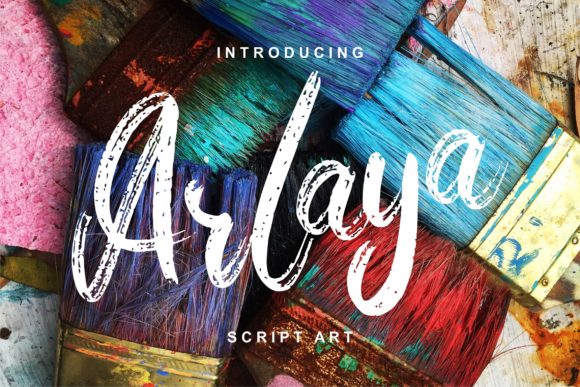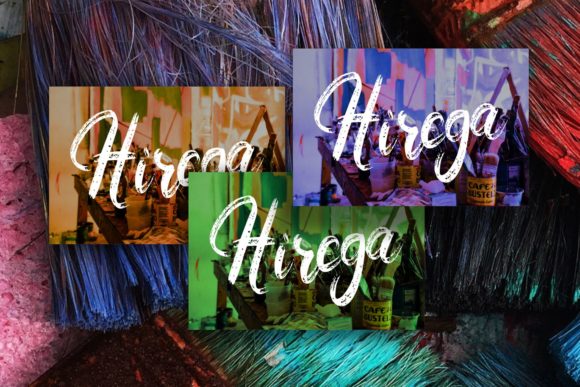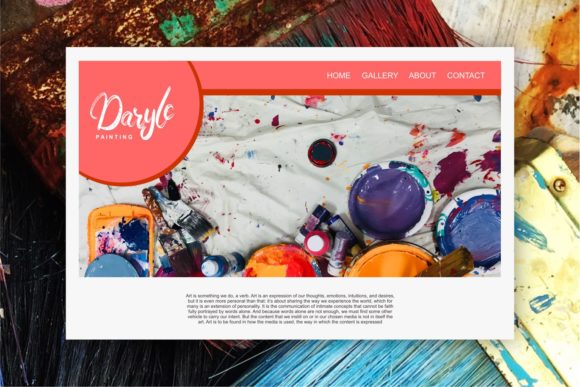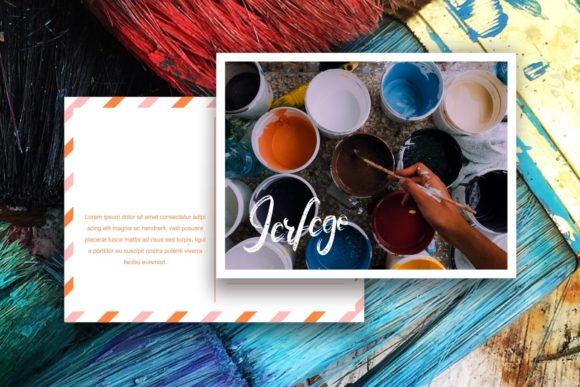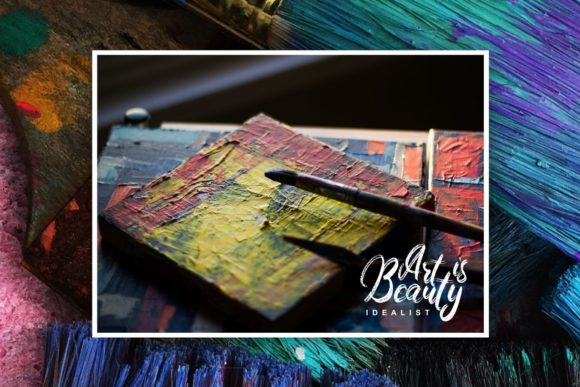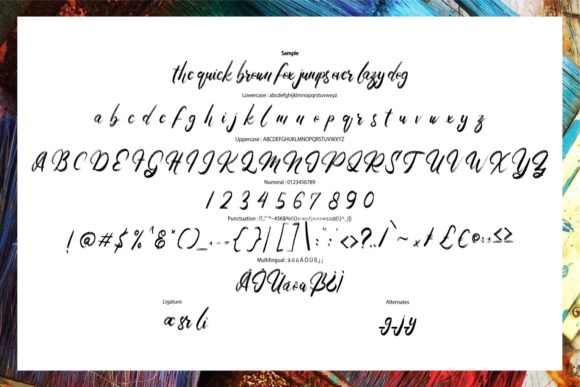
Arlaya Font
About Arlaya Font
Arlaya updates classic calligraphy with a modern twist. This dry brush font will turn any design idea into a true standout.